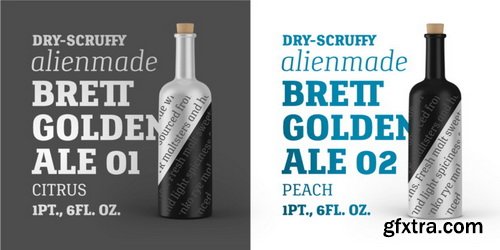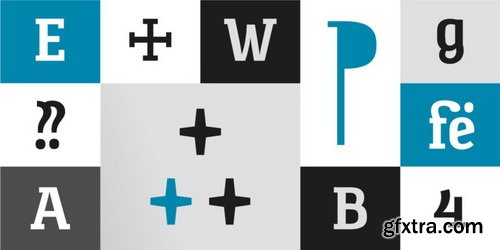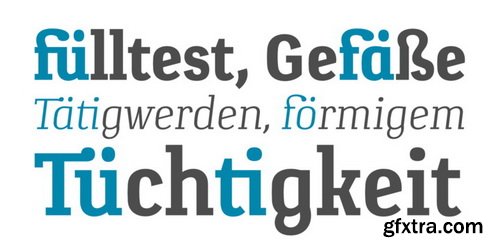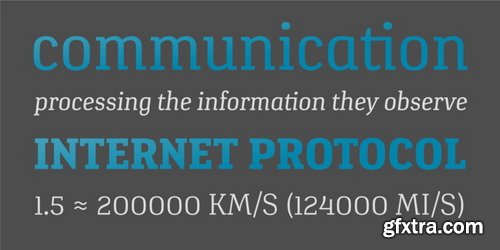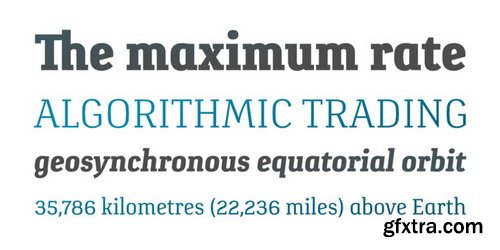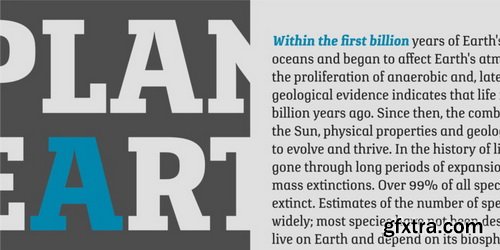
Verge Font Family
Verge type family operates at the very edge of art and technology in the typographic constellation. Its fairing is designed with a new technique that adds better stability to the curvature. It is prepared for all environments and communicates with minimized latency.